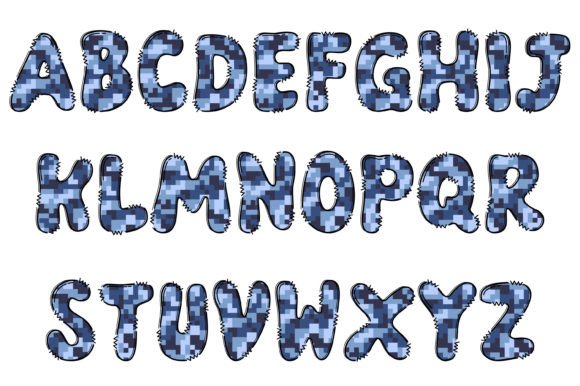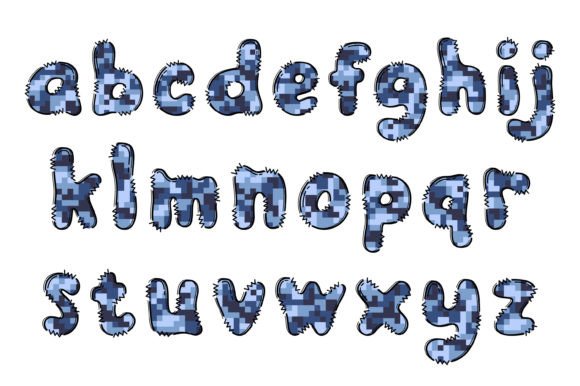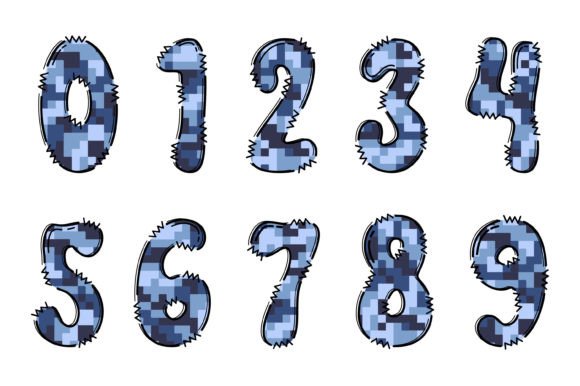
Unleash Your Creativity with Blue Camouflage Font
Are you a designer or crafter looking for a unique and playful font to add a touch of personality to your projects? Look no further than the Blue Camouflage Font! This fun and artistic font is perfect for a variety of designs, from children’s books to posters, invitations, and greeting cards.
The Power of Playful Fonts
Playful fonts like Blue Camouflage can instantly elevate the tone of your design, making it more engaging and appealing to your audience. These fonts are often used in designs that aim to convey a playful or artistic feel, such as children’s books, posters, invitations, greeting cards, and more. For instance, children’s books often utilize fonts that are whimsical, colorful, and easy to read, creating an engaging reading experience for young audiences.
Key Features of Blue Camouflage Font
- Playful and Artistic: The Blue Camouflage Font features a unique and playful design that’s perfect for adding a touch of personality to your projects.
- Versatile: This font is suitable for a wide range of designs, from children’s books to posters, invitations, and greeting cards.
- Easy to Read: The font is designed to be easy to read, making it perfect for body text and headlines.
Tips for Using Blue Camouflage Font
To get the most out of the Blue Camouflage Font, here are some tips to keep in mind:
- Use it for Headlines and Body Text: The font is designed to be easy to read, making it perfect for both headlines and body text.
- Experiment with Colors: The color version of the font offers a range of possibilities for adding a pop of color to your design.
- Pair it with Other Fonts: Blue Camouflage Font can be paired with other fonts to create a unique and visually appealing design.